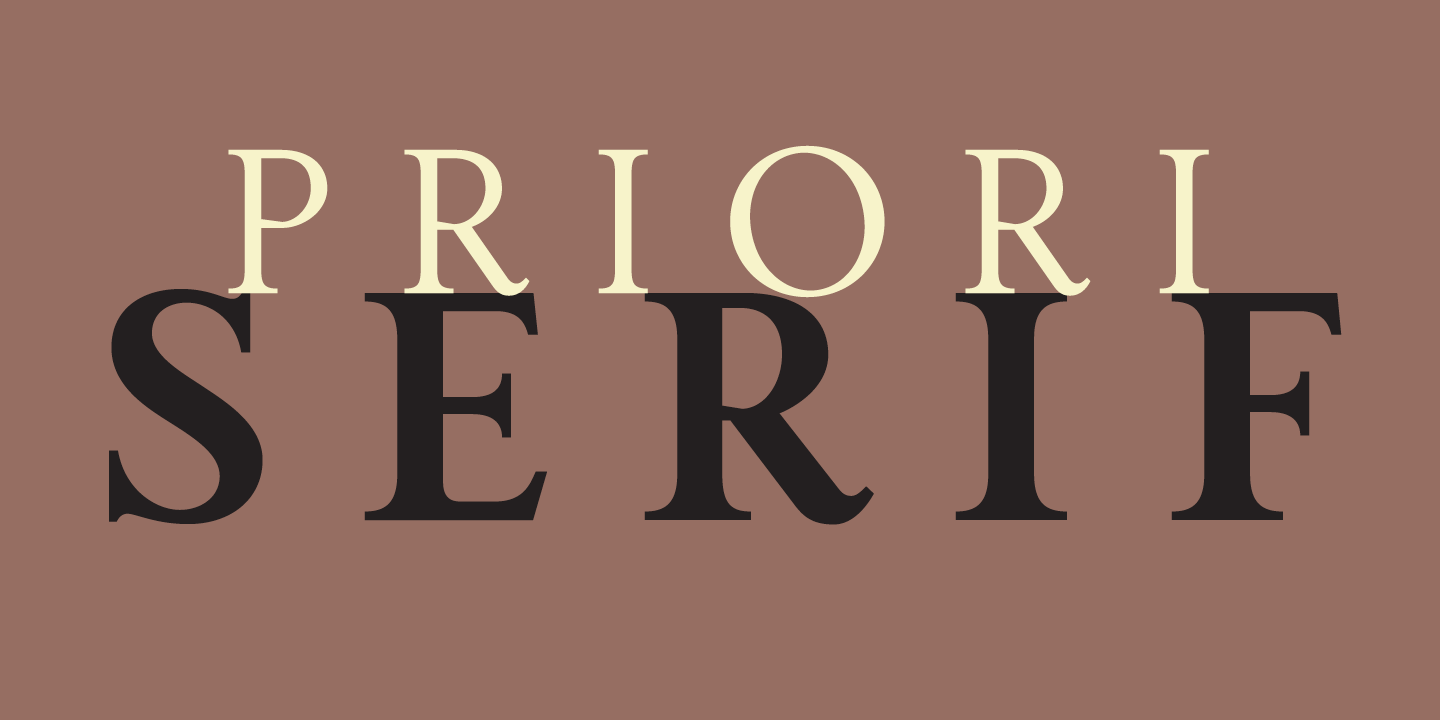
Priori Serif Font is perfect for academic journals, legal documentation, financial reports, insurance company branding, traditional newspaper layouts, government publications, and authoritative editorial content that requires trustworthy, established typography.
This font is exciting because it represents the perfect evolution of classical serif traditions, featuring meticulously balanced letterforms that convey authority, reliability, and intellectual credibility while maintaining exceptional readability for extended reading sessions.
The Priori Serif Font family includes light, regular, medium, and bold weights with matching italics, offering comprehensive character sets, professional ligatures, oldstyle numerals, small caps, and extensive punctuation for serious publishing applications.
Editorial professionals consistently select Priori Serif Font Free Download for projects demanding uncompromising readability and institutional authority. This distinguished typeface establishes immediate credibility and intellectual gravitas, making it indispensable for publications where reader trust and scholarly reputation are paramount. The font's classical heritage makes it exceptionally effective for legal briefs, academic papers, and financial communications where precision and reliability must be conveyed through every letterform. Its comprehensive weight range supports complex editorial hierarchies while maintaining optimal text flow for extended reading comfort. The carefully engineered serif details enhance character recognition and reading speed, making it ideal for dense informational content and professional documentation. Whether you're developing scholarly publications, creating legal documents, or designing institutional communications, this typeface provides the authoritative voice and typographic excellence that distinguishes serious professional work from casual publishing, establishing immediate recognition among educated audiences who demand the highest standards of intellectual rigor and editorial craftsmanship in their professional reading materials.